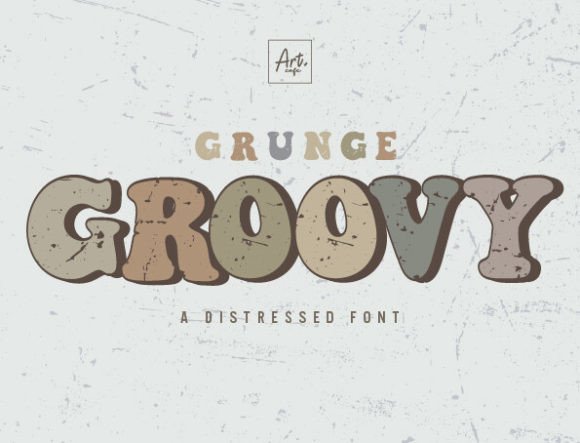
Grunge Groovy Font
Immerse yourself in the nostalgia of yesteryears with Grunge Groovy. This distressed font exemplifies vintage charm and retro panache, perfectly designed to infuse an edgy, groovy vibe into any design. Reinventing the aesthetic of the throwback era, Grunge Groovy is the ultimate choice for anyone seeking an artistic fusion of retro and cool.